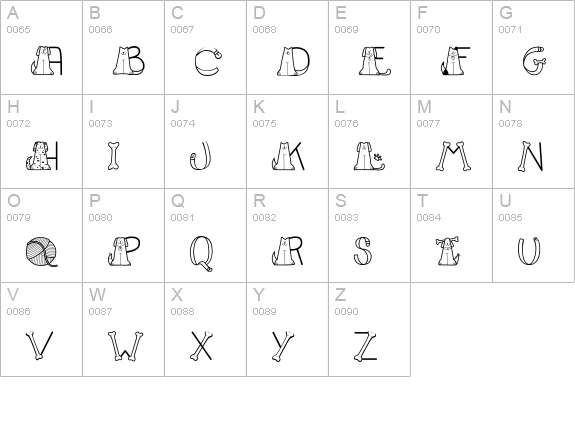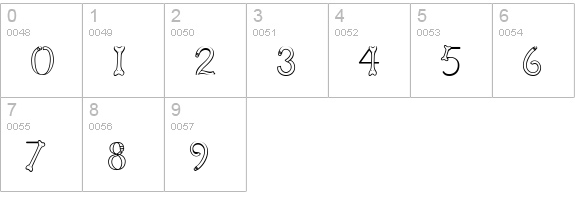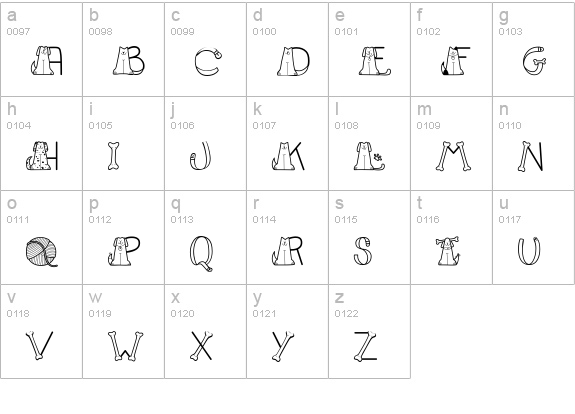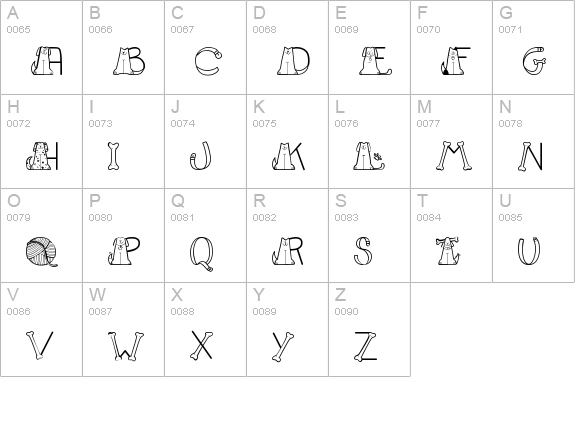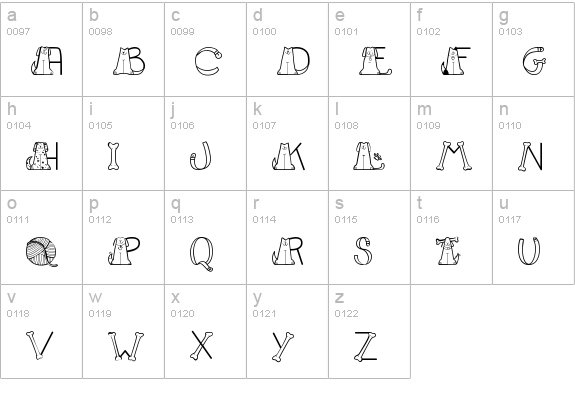
CK Cats & Dogs Font Details
Introducing CK Cats & Dogs font, a delightful and playful typeface perfect for adding a touch of whimsy to your design projects. This charming font features adorable cat and dog illustrations incorporated into the letters, making it a fun and unique choice for any creative endeavor. Whether you're working on a pet-related project, children's book, or simply want to infuse some lightheartedness into your designs, CK Cats & Dogs font is sure to bring a smile to your audience. Best of all, CK Cats & Dogs font is available for free download at FontsMarket.com. So go ahead and unleash your creativity with this charming and lovable font today!